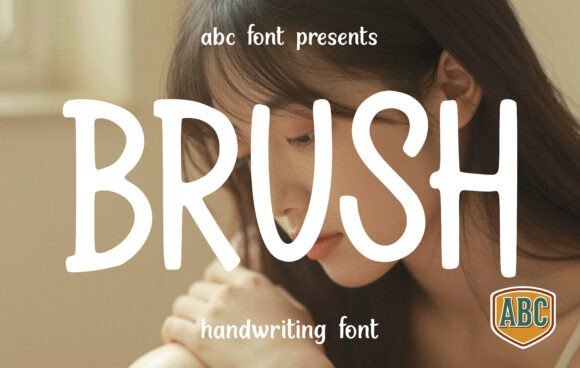
Adding a Personal Touch to Your Designs
Have you ever been stuck on a design project, searching for that perfect font to capture the essence of your brand’s personality? I’m sure you have. We’ve all been there – pouring over font libraries, trying to find that one font that makes our designs feel warm, inviting, and uniquely us. And then, one day, we stumble upon it – the perfect font that sets our designs apart and makes them truly special.
Enter Brush Font, a friendly and approachable display font designed to add a touch of casual warmth to your creative projects. With its tall, slender proportions and rhythmic verticality, Brush Font is an exceptional choice for lifestyle branding, children’s book titles, creative stationery, and charming social media overlays.
Brush Font Key Features
- Unique Characteristics: Brush Font features a unique, hand-drawn design with subtle imperfections, giving it a personal and artistic feel.
- Legibility: Despite its decorative nature, the font remains highly legible, making it suitable for body text and longer passages.
- Customization: The font’s versatility allows for easy customization, enabling designers to create unique and personalized designs.
Brush Font Review
When I first saw Brush Font, I was immediately drawn to its unique, hand-drawn aesthetic ✨. It’s perfect for designers looking to add a touch of personality to their projects. The font’s irregularities give it a human feel that’s hard to replicate with digital tools. The variety of brush styles and sizes also makes it versatile for use in logos, headings, and body text.
- Highly expressive and emotive
- Works well in creative, artistic, and design-focused projects
- Can be used to create unique, eye-catching typography
However, Brush Font is not without its limitations ⚠️. The inconsistent line widths and irregularities can make it difficult to read, especially in long blocks of text. This font is best used sparingly, as overuse can lead to visual fatigue. Additionally, the font’s organic nature can make it challenging to pair with other typefaces.
Overall, Brush Font is a great addition to any designer’s toolkit, but it should be used thoughtfully. Its unique aesthetic makes it perfect for projects where you want to convey creativity and personality. Just be mindful of its limitations and use it in moderation to avoid overwhelming your audience.
Practical Application Guide for Brush Font
Brush Font is ideal for creating hand-drawn, artistic, or whimsical text effects. Use it to add a personal touch to your designs, or to create a unique brand identity. Tips for getting the most out of Brush Font include experimenting with different brush settings, adjusting font sizes, and combining Brush Font with other design elements to create a cohesive look.
Alternatives to Brush Font
Great Vibes is a beautiful, handwritten script font that is perfect for adding a touch of elegance and sophistication to your designs. It’s ideal for use in wedding invitations, birthday cards, and other special occasion materials. Compared to Brush Font, Great Vibes has a more refined and polished look, making it suitable for high-end projects.
Carolyna Pro is a modern, brush-style script font that is great for creating eye-catching headlines and titles. It’s perfect for use in magazines, brochures, and other print materials where you want to grab the reader’s attention. Compared to Brush Font, Carolyna Pro has a more modern and edgy feel, making it suitable for trendy and fashion-forward designs.
Lobster is a fun, cursive script font that is perfect for use in casual and creative projects. It’s ideal for use in social media graphics, blog posts, and other online materials where you want to add a touch of personality. Compared to Brush Font, Lobster has a more playful and relaxed feel, making it suitable for laid-back and humorous designs.